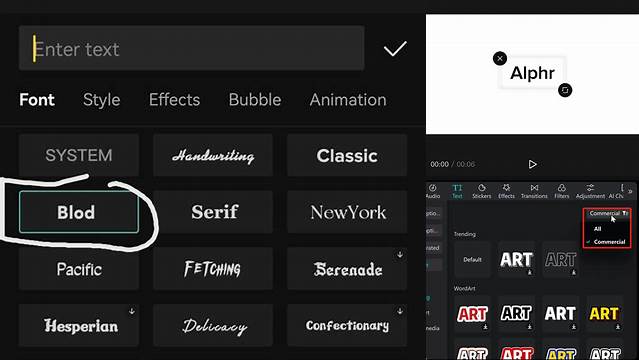
Best Fonts For CapCut Edits: Make Your Videos Pop!
Hey guys! Are you looking to take your CapCut video editing skills to the next level? One of the easiest and most effective ways to do that is by using the right fonts. The fonts you choose can significantly impact the overall look and feel of your videos, helping you convey your message more effectively and engage your audience. In this article, we're going to dive deep into the world of fonts for edits in CapCut, covering everything from why they matter to how to choose the perfect ones for your projects. We’ll also explore some of the best font options available and how to install custom fonts to really make your edits stand out. So, let’s get started and transform your videos from good to great with the power of typography!
Why Fonts Matter in Video Editing
So, why do fonts for video editing matter so much anyway? Well, think of fonts as the voice of your visuals. Just like how a speaker's tone and delivery can influence how you perceive their message, the fonts you use in your videos can drastically change how your audience interprets your content. A playful, bubbly font might be perfect for a fun vlog, but it would feel totally out of place in a serious documentary. Conversely, a sleek, modern font might add a touch of professionalism to a corporate video, but it could feel cold and impersonal for a heartfelt personal story.
Fonts play a crucial role in setting the tone and mood of your video. The right font can grab attention, emphasize key points, and create a cohesive visual experience. Imagine watching a horror movie with a Comic Sans font for the titles – it just wouldn't work, right? The font needs to match the genre and emotional tone of the film to be effective. This principle applies to all types of video content, from social media clips to promotional videos. By carefully selecting your fonts, you can ensure that your message is not only seen but also felt by your audience. Moreover, the right typography enhances the readability and accessibility of your content. If your text is difficult to read, viewers are likely to tune out. Clear, legible fonts make it easier for your audience to follow your message and stay engaged. This is particularly important for videos with a lot of text, such as tutorials or explainer videos. Choosing a font that is both stylish and easy to read is essential for effective communication. Ultimately, strategic use of fonts improves overall video aesthetics and professionalism. In a world where first impressions matter, the visual appeal of your videos can make or break their success. A well-chosen font can elevate the look of your video, making it appear polished and professional. This not only enhances the viewing experience but also boosts your credibility as a content creator. Whether you’re aiming to build a brand, share your story, or simply entertain your audience, using the right fonts is a powerful way to make your videos stand out from the crowd. So, take the time to explore different font options and consider how they align with your video's message and style. Trust me; it's an investment that will pay off in the long run!
Understanding Font Categories
Alright, let's dive into the fascinating world of font categories! Knowing the different types of fonts out there is like having a secret weapon in your video editing arsenal. Each category has its own personality and style, making it perfect for certain types of videos and messages. Understanding these categories will help you make informed decisions and choose the best fonts for your CapCut edits.
First up, we have Serif fonts. These are the classic, traditional fonts that you often see in books and newspapers. They're characterized by the small decorative strokes, or “serifs,” at the end of each letter. Think of fonts like Times New Roman, Georgia, and Garamond. Serif fonts give off a sense of formality, trustworthiness, and sophistication. They're great for videos that need a touch of elegance or authority, such as documentaries, educational content, or corporate presentations. Next, let's talk about Sans-serif fonts. As the name suggests, these fonts don't have the little serifs at the ends of the letters. Fonts like Arial, Helvetica, and Open Sans fall into this category. Sans-serif fonts are known for their clean, modern look, making them ideal for videos that need a contemporary feel. They're also very readable on screens, so they're a popular choice for captions and on-screen text in social media videos, tutorials, and vlogs.
Then there are Script fonts, which mimic the flowing strokes of handwriting. These fonts can range from elegant and formal scripts to playful and casual ones. Think of fonts like Brush Script, Pacifico, and Lobster. Script fonts are perfect for adding a personal touch to your videos, making them great for wedding videos, invitations, and lifestyle content. However, it's important to use script fonts sparingly, as they can be harder to read in large blocks of text. Decorative fonts are where things get really fun and creative. This category includes a wide range of fonts with unique and eye-catching designs. You'll find fonts that look like they're dripping, fonts with a vintage vibe, and fonts that are downright quirky. Decorative fonts are fantastic for grabbing attention and adding personality to your videos. They work well for titles, intros, and outros, but like script fonts, they're best used in moderation. Finally, we have Monospace fonts, where each letter takes up the same amount of horizontal space. These fonts are often used in coding and technical contexts, but they can also add a retro or industrial feel to your videos. Courier New is a classic example of a monospace font. While not as versatile as other categories, monospace fonts can be a cool choice for specific projects. By understanding these font categories, you can start to develop a sense of which fonts work best for different types of videos. Experiment with different fonts and combinations to find your own style and create videos that truly stand out! Remember, the right font can make all the difference in how your message is received, so choose wisely and have fun exploring the world of typography.
Best Fonts Available in CapCut
Okay, let's get down to the nitty-gritty and explore some of the best fonts available right inside CapCut. CapCut comes packed with a decent selection of fonts that can cater to a wide range of video styles, so you don't always need to go hunting for custom fonts. Knowing what’s available can save you time and effort, and help you create awesome videos right away.
First up, we have the classics. CapCut includes a few tried-and-true fonts that are versatile and easy to read. Fonts like Arial and Helvetica are solid choices for a clean, modern look. They work well for captions, lower thirds, and any text that needs to be legible on screen. These sans-serif fonts are particularly useful for tutorials, explainer videos, and professional content. Then there are the elegant options. If you're looking to add a touch of sophistication to your videos, CapCut offers fonts like Times New Roman and Georgia. These serif fonts bring a classic, polished feel, making them suitable for wedding videos, documentaries, and formal presentations. They can also be a good choice for titles and headings that need to stand out.
CapCut also features a range of script and handwriting-style fonts for when you want to inject some personality into your edits. Fonts like Brush Script and similar options can give your videos a personal, hand-crafted feel. These fonts are perfect for intros, outros, and titles where you want to add a touch of warmth and creativity. However, remember to use them sparingly, as they can be harder to read in large blocks of text. For those who love a bold and impactful look, CapCut has you covered too. Fonts like Impact and similar heavy sans-serif options are great for grabbing attention. They're ideal for titles, call-outs, and any text that needs to make a statement. These fonts are particularly effective in fast-paced, dynamic videos where you need to communicate quickly and clearly. CapCut also includes some unique and quirky fonts that can add a fun, playful vibe to your videos. These fonts are perfect for vlogs, social media content, and anything that needs a touch of personality. Experiment with different styles to find fonts that match the tone and mood of your video. One of the great things about CapCut is that it's constantly updating its font library. This means you'll often find new and exciting options to play with, keeping your edits fresh and engaging. Be sure to explore the font menu regularly to see what's new. By understanding the range of fonts available in CapCut, you can make informed choices and create videos that look professional and polished. Don’t be afraid to mix and match different fonts to find combinations that work well together. Just remember to keep readability in mind and ensure that your fonts complement your video's overall aesthetic. With a little experimentation, you'll be crafting stunning videos in no time!
How to Install Custom Fonts in CapCut
Okay, guys, ready to take your CapCut game to the next level? Sometimes, the built-in fonts just don't cut it, and you need something extra to really make your videos pop. That's where custom fonts come in! Installing custom fonts in CapCut is a fantastic way to add a unique touch to your projects and stand out from the crowd. Luckily, it's a pretty straightforward process, and I'm here to walk you through it step by step.
First things first, you need to find some awesome custom fonts. There are tons of websites out there offering free and premium fonts. Some popular sites include Google Fonts, DaFont, and Font Squirrel. Google Fonts is a fantastic resource for high-quality, free fonts that are easy to download and use. DaFont has a massive selection of fonts, including lots of quirky and decorative options. Font Squirrel is another great source for free fonts, with a focus on fonts that are licensed for commercial use. When you're browsing for fonts, make sure to choose ones that are compatible with your device and editing software. Most fonts come in either .OTF (OpenType Font) or .TTF (TrueType Font) formats, both of which work well with CapCut. Once you've found a font you love, download the font file to your device. This usually comes as a .zip file, so you'll need to unzip it to access the font file (.OTF or .TTF). On most devices, you can simply double-click the .zip file to extract its contents. Now comes the crucial part: installing the font on your device. The process varies slightly depending on whether you're using an iOS or Android device.
Remember, the fonts you use in your videos can significantly impact how your message is received. They set the tone, enhance readability, and contribute to the overall visual appeal of your content. By taking the time to choose fonts that align with your video's message and style, you can create videos that are not only engaging but also professional and polished. Whether you're using the built-in fonts in CapCut or installing custom fonts to add a unique touch, the possibilities are endless. Experiment with different font categories, mix and match fonts strategically, and always prioritize readability. And don't forget to consider your branding, if you're creating videos for a business or personal brand. Consistency in font choice can help reinforce your brand’s identity and make your videos instantly recognizable. Ultimately, choosing the right fonts is about more than just aesthetics. It's about effective communication and connecting with your audience on a deeper level. By paying attention to the details, like font choice, you can elevate your videos and make them truly stand out. So go ahead, guys, dive into the world of typography and start creating videos that look and feel amazing! Happy editing, and I can't wait to see what you come up with!